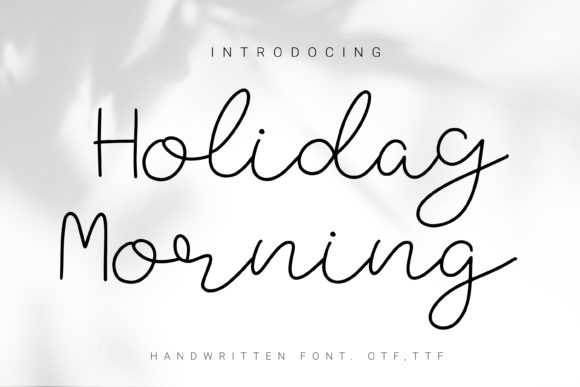
Step into the world of exquisite creativity with Holiday Morning Font - a signature script creation that breathes life into your artistic visions. Its meticulously crafted characters, reminiscent of flowing water, dance gracefully across the page, leaving a trail of elegance and charm. Whether you're a seasoned designer or just starting your creative journey, Holiday Morning Font will effortlessly elevate your projects to new heights of originality.
With its captivating aura, Holiday Morning Font transforms ordinary words into captivating expressions of art. Its rounded letterforms, reminiscent of playful whispers, add a touch of whimsy and warmth to your designs. Let your imagination soar as you explore the endless possibilities offered by this font, allowing your creativity to flourish like never before. Unleash the charm and allure that lies within Holiday Morning Font, and embark on a creative adventure that will leave an unforgettable mark.
Dive into the versatility of Holiday Morning Font, a script typeface that effortlessly adapts to any creative context. Its flowing lines bring a touch of sophistication to logos, branding, and social media posts, while its playful nature adds a spark of personality to invitations, greeting cards, and other personal projects. Whether you're crafting a heartfelt letter, designing a captivating poster, or simply adding a touch of elegance to your everyday correspondence, Holiday Morning Font is your go-to choice for captivating creations.